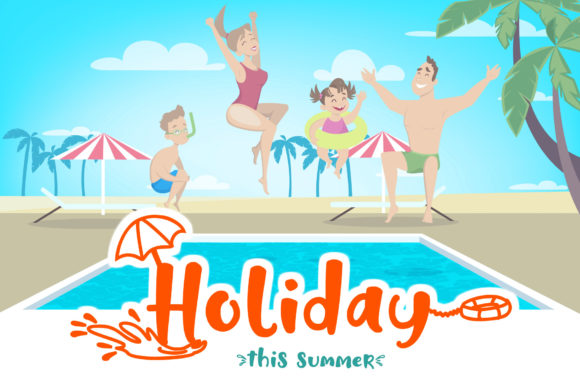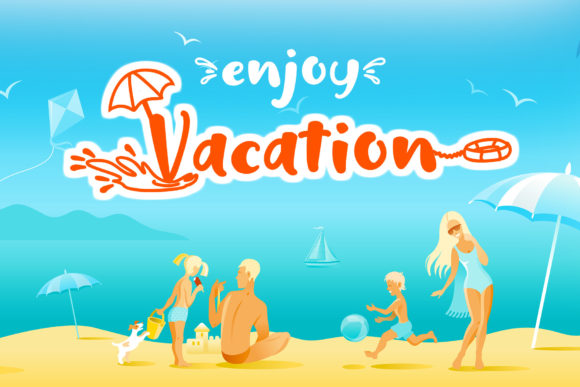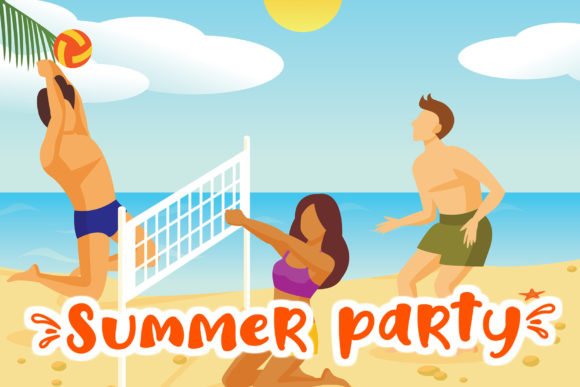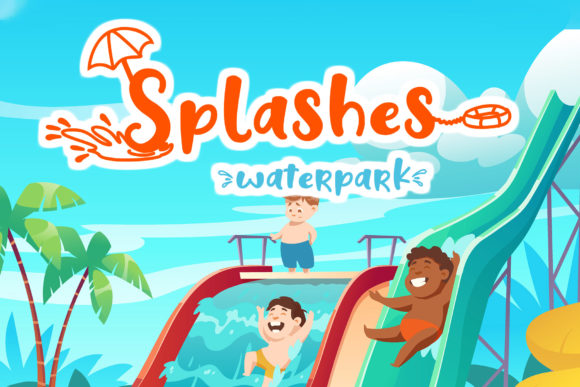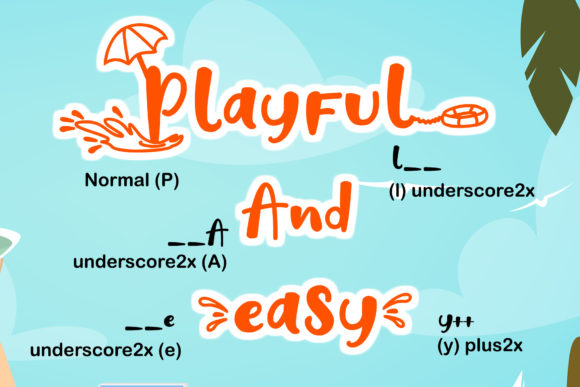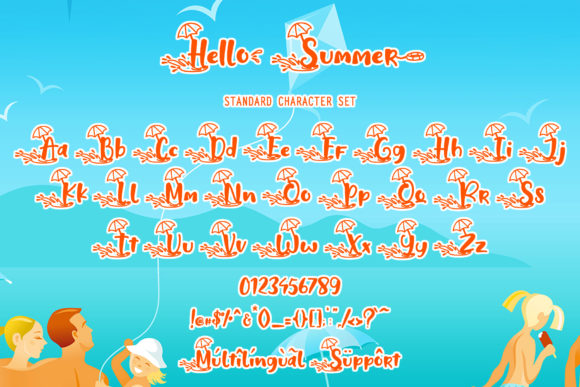
Introduction to Hello Summer Font
Have you ever been working on a design project, pouring your heart and soul into it, and then, suddenly, you feel like something’s missing? That’s when you realize that the perfect font can make all the difference. It’s like adding a sprinkle of sunshine to your creative masterpiece. This is exactly what happens when you incorporate the Hello Summer Font into your designs.
This delightful display font is a game-changer for designers looking to add a touch of joy and whimsy to their projects. With its well-rounded characters and high-quality design, the Hello Summer Font is a valuable resource for anyone looking to elevate their creative work.
Whether you’re working on a design project that requires a transparent background or a free download, the Hello Summer Font is sure to impress. Its unique charm and beauty make it the perfect addition to any creative project, and its free download availability makes it accessible to designers of all levels.
Key Features of Hello Summer Font
- High-quality design resource ideal for creative projects and summer-themed designs.
- Includes a range of stylish and modern characters, perfect for headings and titles.
- Designed to evoke a sense of warmth and playfulness, making it perfect for summer-themed designs and creative projects.
Honest Review: Hello Summer Font
As a designer, I’m always on the lookout for high-quality design resources to elevate my creative projects. The Hello Summer Font caught my eye with its beautiful, hand-drawn design and transparent background, making it perfect for adding a personal touch to any summer-themed project.
- ✨ Beautiful, hand-drawn design that’s perfect for summer-themed projects
- ✨ Transparent background makes it easy to layer over other design elements
- ✨ High-quality font that’s perfect for print and digital designs
- ⚠️ Limited font weights and styles, which may limit its versatility
- ⚠️ May not be suitable for complex or large-scale designs
Overall, I’m impressed with the Hello Summer Font. It’s a great resource for designers who want to add a touch of summer fun to their projects. While it may have some limitations, its unique design and high-quality finish make it a great addition to any design library.
Use the “Hello Summer Font” in conjunction with other design elements, such as images and graphics, to create a visually appealing design. Experiment with different font sizes, colors, and transparencies to find the perfect combination for your design. Consider using the font in a creative project, such as a summer-themed poster or invitation.
The “Hello Summer Font” is perfect for a variety of design projects, including summer-themed posters, invitations, and social media graphics. It’s also great for use in presentations, such as a summer-themed PowerPoint or Word document. With its high-quality design and transparent background, this font is sure to add a unique touch to any creative project.